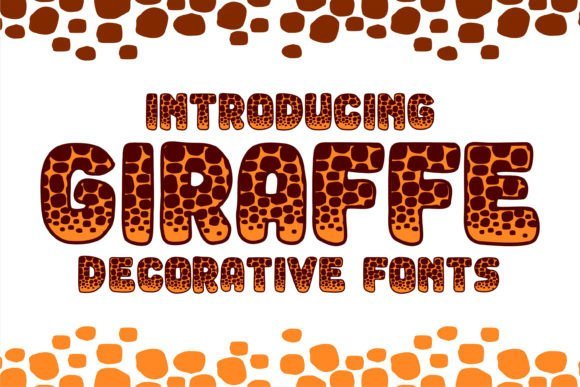
Step into the Wild with Giraffe Font
Have you ever found yourself staring at a blank page, waiting for the perfect font to bring your design to life? That’s exactly what happened to me when I stumbled upon the Giraffe Font. As a designer, I’m always on the lookout for unique and playful fonts that can add an extra layer of creativity to my projects. And let me tell you, this one did not disappoint.
The Giraffe Font is a decorative font that boasts a textured, giraffe skin design. It’s perfect for nature-themed projects, and its whimsical feel makes it a great choice for children’s designs. But what really sets it apart is its versatility – no matter the topic, the Giraffe Font has the potential to elevate any creation. With this font in your library, you’ll be ready to tackle any design challenge that comes your way.
- Unique Characteristics: The font features a distinctive, playful, and whimsical design, making it perfect for adding a touch of personality to children’s books, magazines, and other creative projects.
Giraffe Font Review
I recently had the chance to work with the Giraffe Font, and I must say it’s been an interesting experience. Here’s my honest review.
- Unique Design**: Giraffe Font has a distinct, quirky look that can be a great addition to any design project.
- Flexibility**: This font can be used for a variety of purposes, from headings to body text, and even for logo design.
- Fun and Playful**: Giraffe Font is perfect for projects that require a lighthearted and humorous tone.
- Readability**: At times, the font can be a bit hard to read, especially for large blocks of text.
- Lack of Consistency**: The font’s design can be inconsistent, with some letters looking more uneven than others.
- Not Ideal for Formal Projects**: Due to its playful nature, Giraffe Font might not be the best choice for formal or professional projects.
Overall, I think Giraffe Font is a great addition to any designer’s toolkit, but it’s essential to use it wisely. It’s perfect for projects that require a bit of whimsy and humor, but not ideal for more formal or serious projects.
Use the Giraffe font for whimsical and playful designs, such as children’s book covers or greeting cards.
To get the most out of the font, experiment with different font sizes and styles to create a unique visual effect.
Combine the Giraffe font with other playful fonts or graphics to create a visually appealing design.